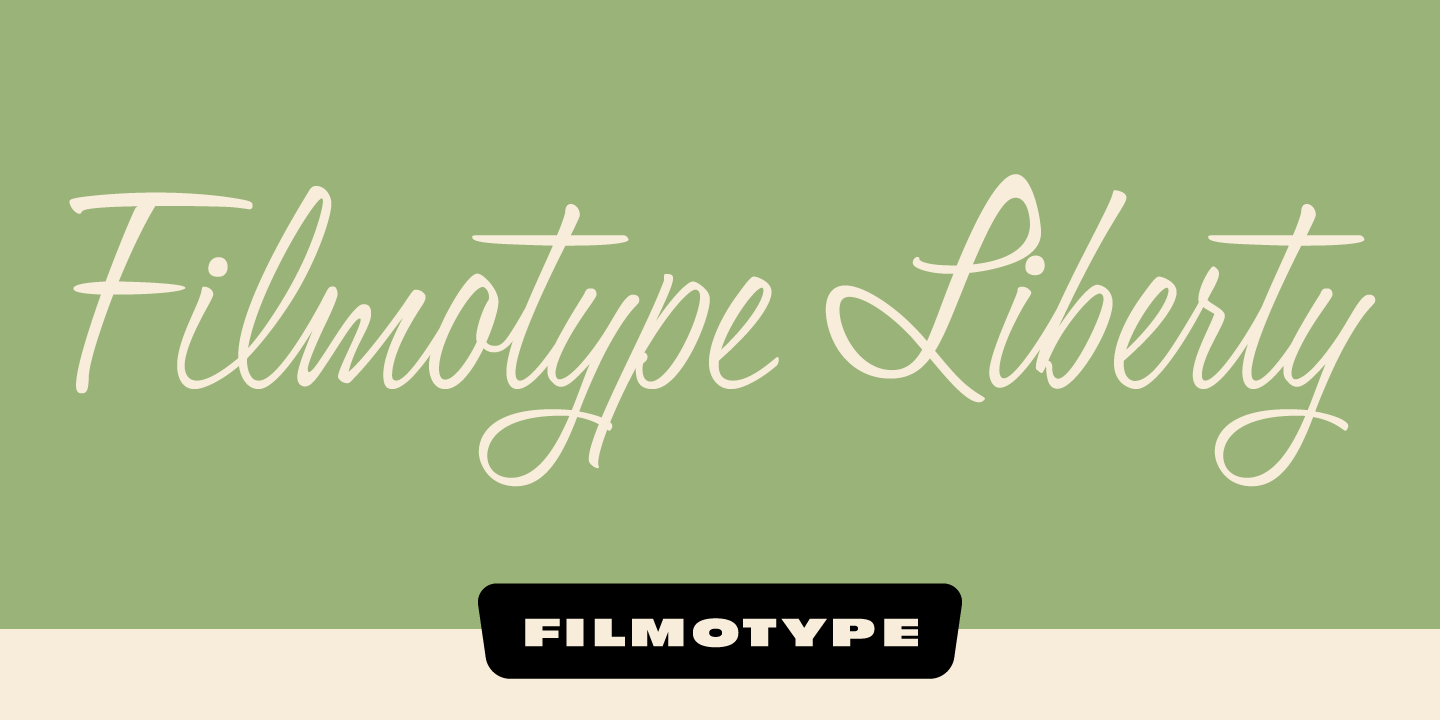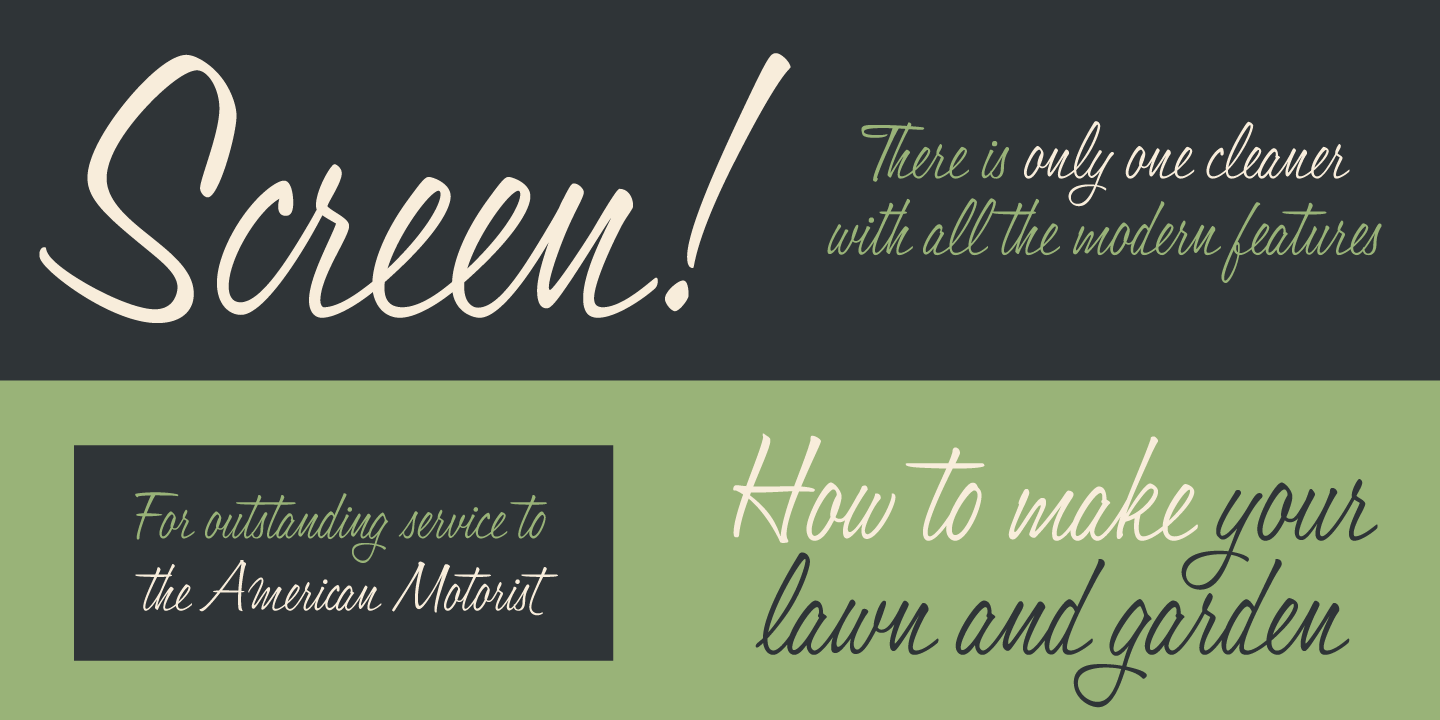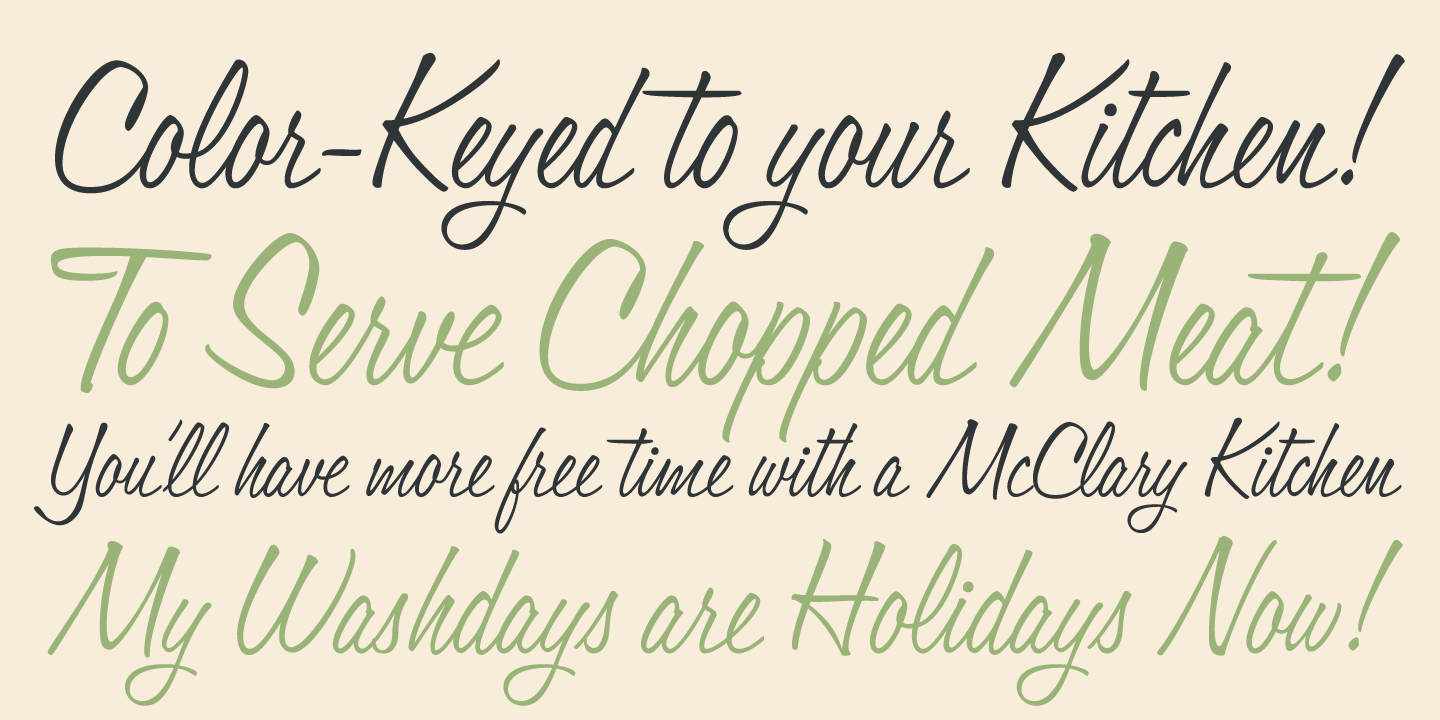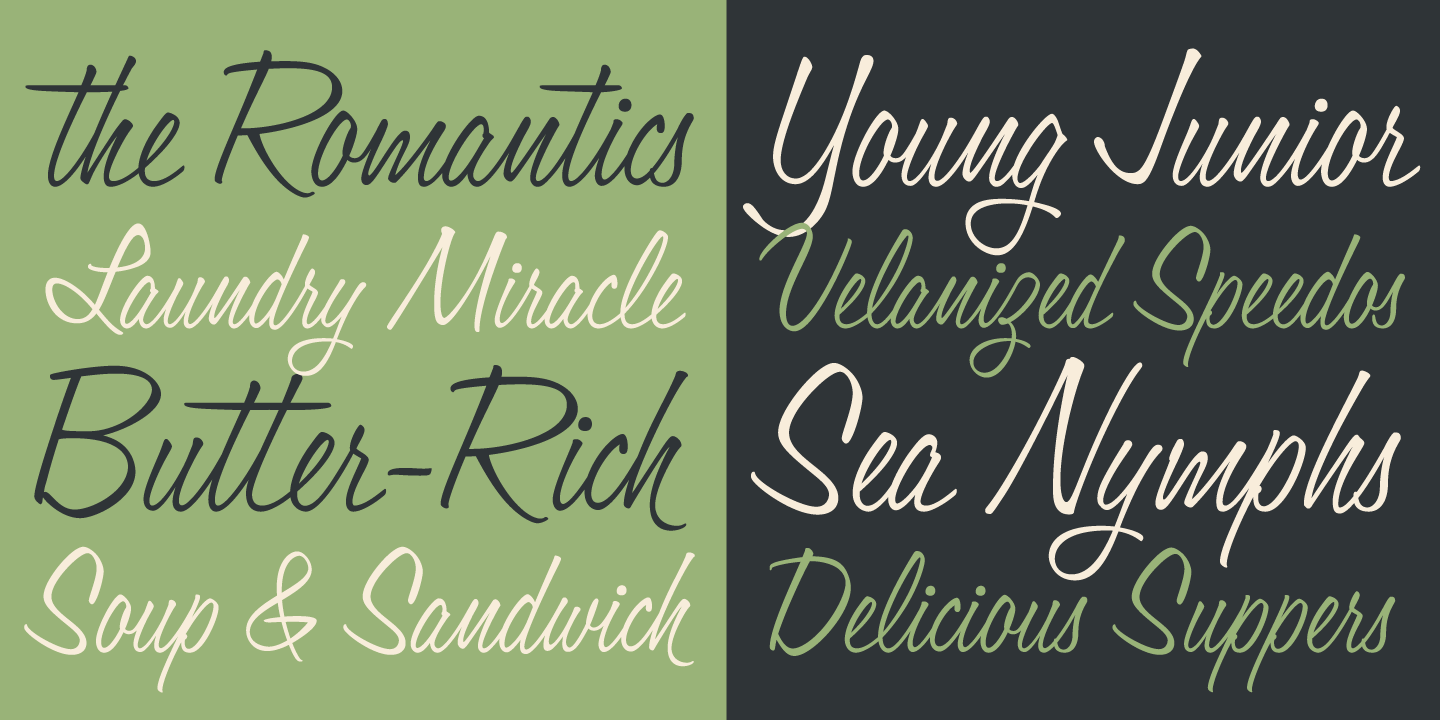
Filmotype Liberty
Filmotype Liberty was released by Filmotype in 1955 in response to its customers requests for an italic version of its popular Filmotype Honey typeface to expand its handlettered pen script styles. This stylish italic script is perfect when you want to convey speed or accent smart product features.
Filmotype Liberty was developed from the original font filmstrips and includes a full international character complement, automatic fractionals, ordinals, and a large set of automatic alternate contextual characters and ligatures to allow flawless typesetting in dynamic OpenType format.